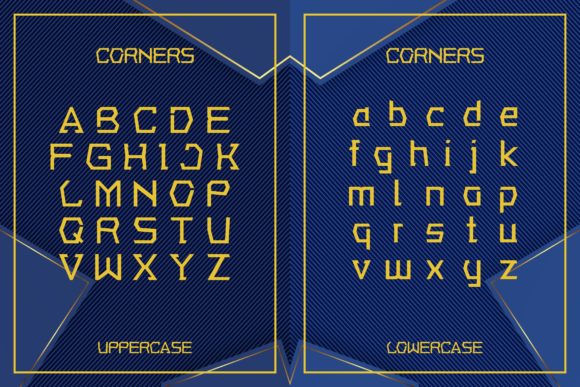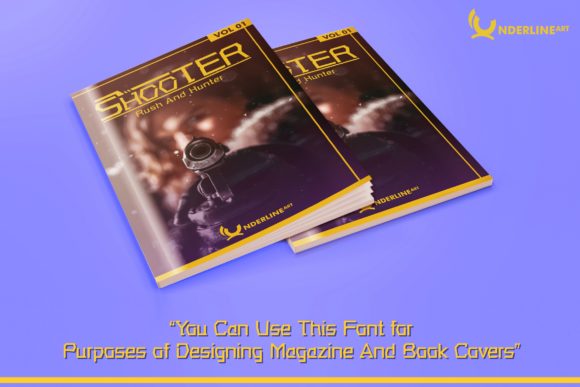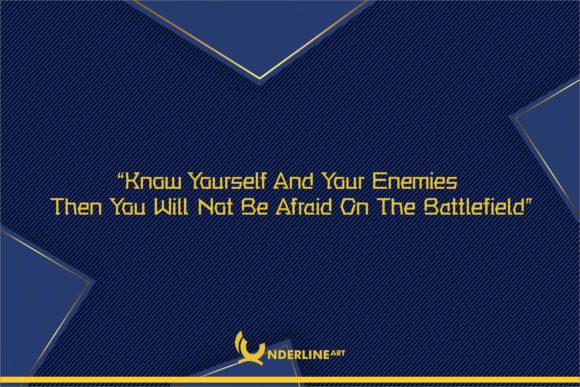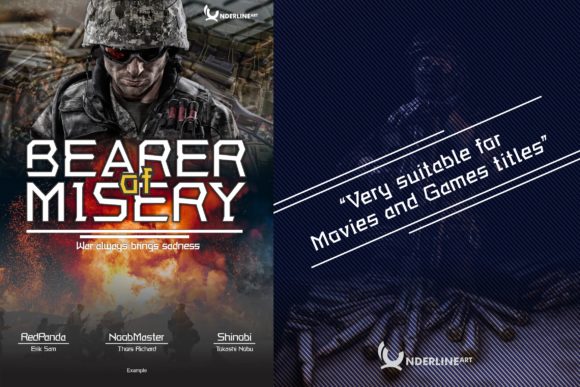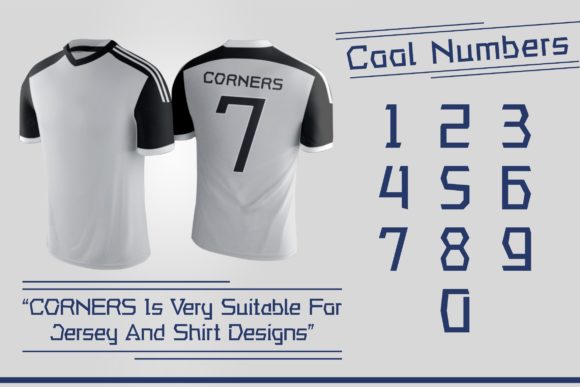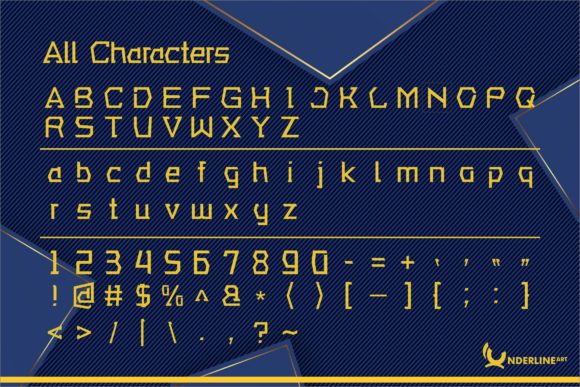
Corners Font: Elevate Your Designs with Elegance and Versatility
Corners is an elegant and experimental display font that radiates style. Ignite your creativity with its versatile charm! In the world of typography, a well-crafted font can make all the difference in elevating your designs to new heights. Corners font is one such gem that has been making waves in the design community, and for good reason. With its unique blend of sophistication and playfulness, Corners is the perfect addition to any designer’s toolkit.
The Story Behind Corners Font
Corners font is the brainchild of a creative team that sought to push the boundaries of traditional typography. With a focus on experimentation and innovation, they crafted a font that is both visually striking and highly versatile. The result is a display font that exudes elegance and charm, making it perfect for a wide range of design applications.
Key Features of Corners Font
- Elegant and Sophisticated: Corners font boasts a refined and polished aesthetic that lends itself perfectly to high-end designs.
- Experimental and Unique: With its unconventional approach to typography, Corners font adds a touch of whimsy and creativity to any design.
- Versatile: Whether you’re working on a logo, branding project, or editorial design, Corners font adapts seamlessly to any style or theme.
- Highly Legible: Despite its experimental nature, Corners font remains highly legible, making it perfect for use in a variety of contexts.
Design Applications for Corners Font
Corners font is an incredibly versatile typeface that can be used in a wide range of design applications. Here are just a few ideas to get you started:
- Logo Design: With its elegant and sophisticated aesthetic, Corners font is perfect for creating high-end logos that make a lasting impression.
- Branding: Use Corners font to add a touch of personality and whimsy to your brand’s typography, setting you apart from the competition.
- Editorial Design: Corners font is ideal for use in editorial designs, such as magazines, newspapers, and books, where its unique charm can add visual interest.
- Packaging Design: Add a touch of elegance and sophistication to your packaging designs with Corners font, perfect for luxury brands or high-end products.
Tips for Using Corners Font Effectively
To get the most out of Corners font, here are a few tips to keep in mind:
- Experiment with Font Sizes: Corners font looks stunning in large display sizes, but it can also be used effectively in smaller sizes to add a touch of elegance to your designs.
- Play with Color: Don’t be afraid to experiment with different colors and gradients to add depth and visual interest to your designs.
- Mix and Match: Combine Corners font with other typefaces to create a unique and visually striking typography scheme.